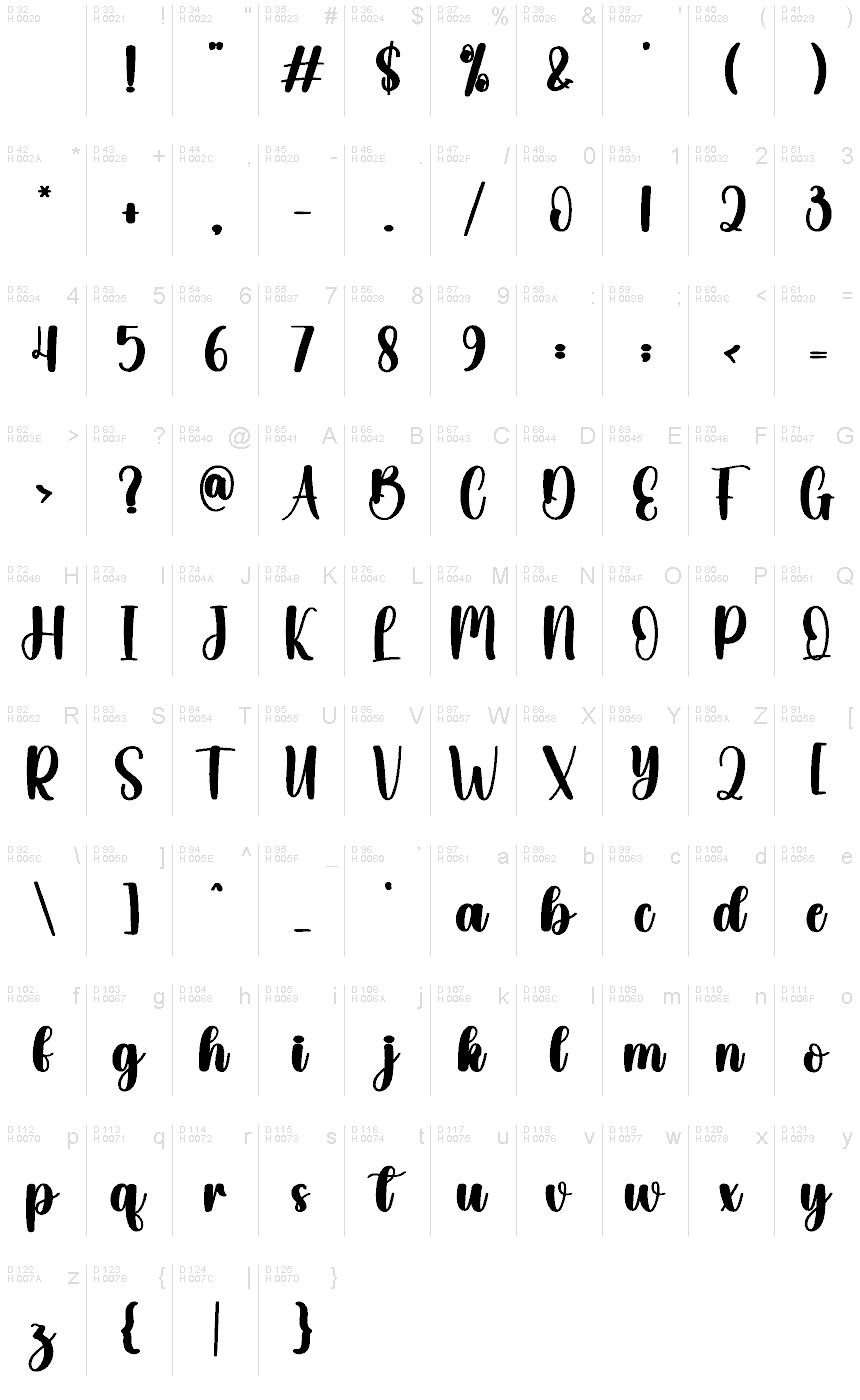
Chunking
Chunking font designed by Scratchones is a free brush font that is stylized and elegant. Handwritten characters add fluidity to both casual and professional designs. This expressive font will capture your readers’ attention with its romantic style, curvy letters, and connecting lines.